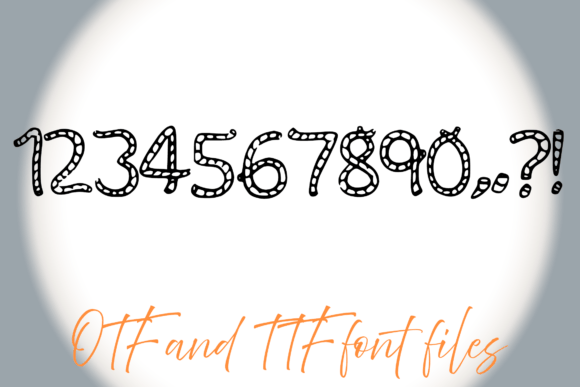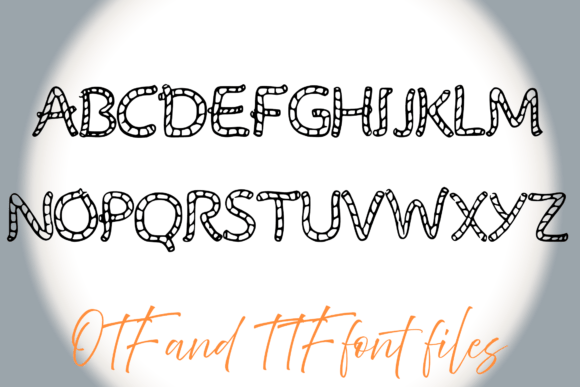
Introduction to Rope Font
You know that moment when you’re brainstorming a creative project and you’re stuck, searching for that perfect design element to bring it all together? It’s like trying to find a missing puzzle piece – frustrating, but ultimately rewarding when you finally find it. That’s what happened to me when I stumbled upon the Rope Font, a fun and versatile design resource that’s been a game-changer for my projects.
This high-quality font is more than just a pretty face; it’s a valuable asset for designers looking to add some texture and depth to their work. With its transparent background and bold rope-like design, it’s perfect for adding a touch of whimsy to any creative project. And the best part? It’s available for free download, making it an accessible resource for designers of all levels.
Whether you’re working on a logo, poster, or craft project, the Rope Font is sure to add a unique and eye-catching element to your design. So why settle for a generic font when you can add some personality to your work with this creative and fun design resource?
Key Features of Rope Font
- High-quality design: Rope Font is a premium font designed for creative projects, offering a unique and stylish aesthetic.
- Transparent background: This font features a transparent background, making it ideal for use on images or videos with complex backgrounds.
- High-resolution design: Rope Font is designed at a high resolution (300 DPI), making it suitable for use in large-scale designs and prints.
- Unique rope texture: Rope Font features a distinctive rope texture that adds a tactile, organic feel to any design project.
- Perfect for creative projects: Rope Font is ideal for use in creative projects, such as graphic design, web design, and advertising, where a unique and eye-catching font is required.
Honest Review: Rope Font
I recently had the chance to work with the Rope Font, and I must say it’s been a delightful experience. The font is perfect for any creative project that requires a high-quality, textured look.
Here are some of the things I love about the Rope Font:
- ✨ High-quality design that adds a unique touch to any project
- ✨ Transparent background, making it easy to work with and adjust to any color scheme
- ⚠️ Limited font weights and styles, which can make it less versatile for complex projects
- ⚠️ Not ideal for projects that require precise font control, as the texture can be distracting
Overall, I’m impressed with the Rope Font’s unique design and ease of use. It’s a great resource for designers looking to add some texture and interest to their creative projects.
Rope Font
What is Rope Font?
Rope Font is a high-quality design resource that features a unique and stylish rope-like texture. It’s available for free download and can be used in various creative projects. With its transparent background, Rope Font can be easily integrated into any design without overpowering the main content.
Tips for Getting the Most Out of Rope Font
- Experiment with different layer settings to achieve the desired level of texture and transparency.
- Use Rope Font in combination with other design elements to create a unique and visually appealing design.
- Consider using Rope Font in a creative project, such as a brochure or poster, to add a touch of sophistication and elegance.
- Background texture for designs and presentations.
- Pattern element for creative projects.
- Accent element for logos and branding materials.